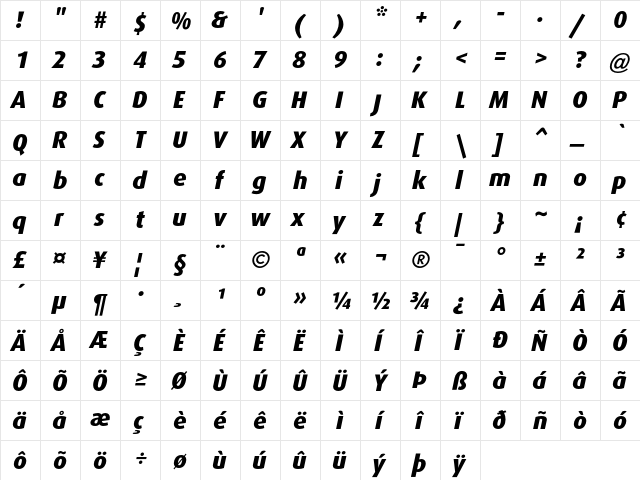
Dax ExtraBoldItalic Font Preview
Dax ExtraBoldItalic
Design Context for Dax Typeface
Dax is a composed and adaptable typeface that performs quietly and consistently across a wide range of design contexts. The dynamic lean of this cut emphasises speed and emphasis in any layout. Its bold stroke weight gives it real presence on the page.
Pro Tip: Try Dax for annotation and caption copy alongside an upright companion — the contrast in angle creates a dynamic but ordered typographic system.